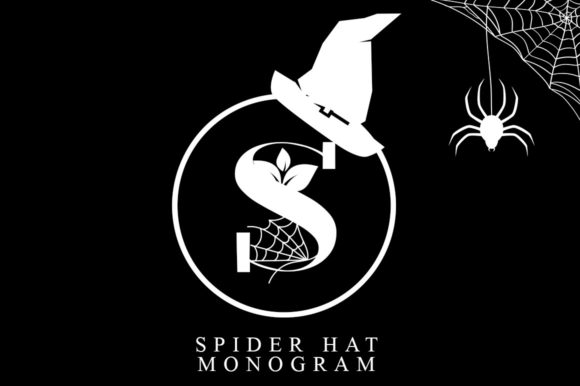
Journey into the realm of spooky season artistry with Spider Hat Monogram, the captivating decorative font that will cast a spell on your Halloween creations. Inspired by the essence of Halloween, this font is meticulously crafted to evoke the spirit of the holiday, making it the perfect choice for adding a touch of eerie elegance to your projects.
Unleash your creativity and weave your enchanting words into hauntingly beautiful designs. Whether you're crafting invitations for a spooky soirée, designing spine-tingling posters for your local haunted house, or personalizing Halloween cards for friends and family, Spider Hat Monogram will bring your ideas to life with its bewitching charm.
Step into the realm of the macabre and let your imagination run wild as you conjure up spellbinding designs with this font. Create hair-raising logos that send shivers down their spines, or craft enchanting invitations that beckon them to your haunted festivities. The possibilities are endless.
With Spider Hat Monogram, you hold the key to unlocking a world of Halloween magic. Embrace the spirit of the season and let this font ignite your creativity, leaving your audience spellbound and craving more. So, delve into the world of Spider Hat Monogram and let the haunting beauty of this font cast its spell on your Halloween designs.